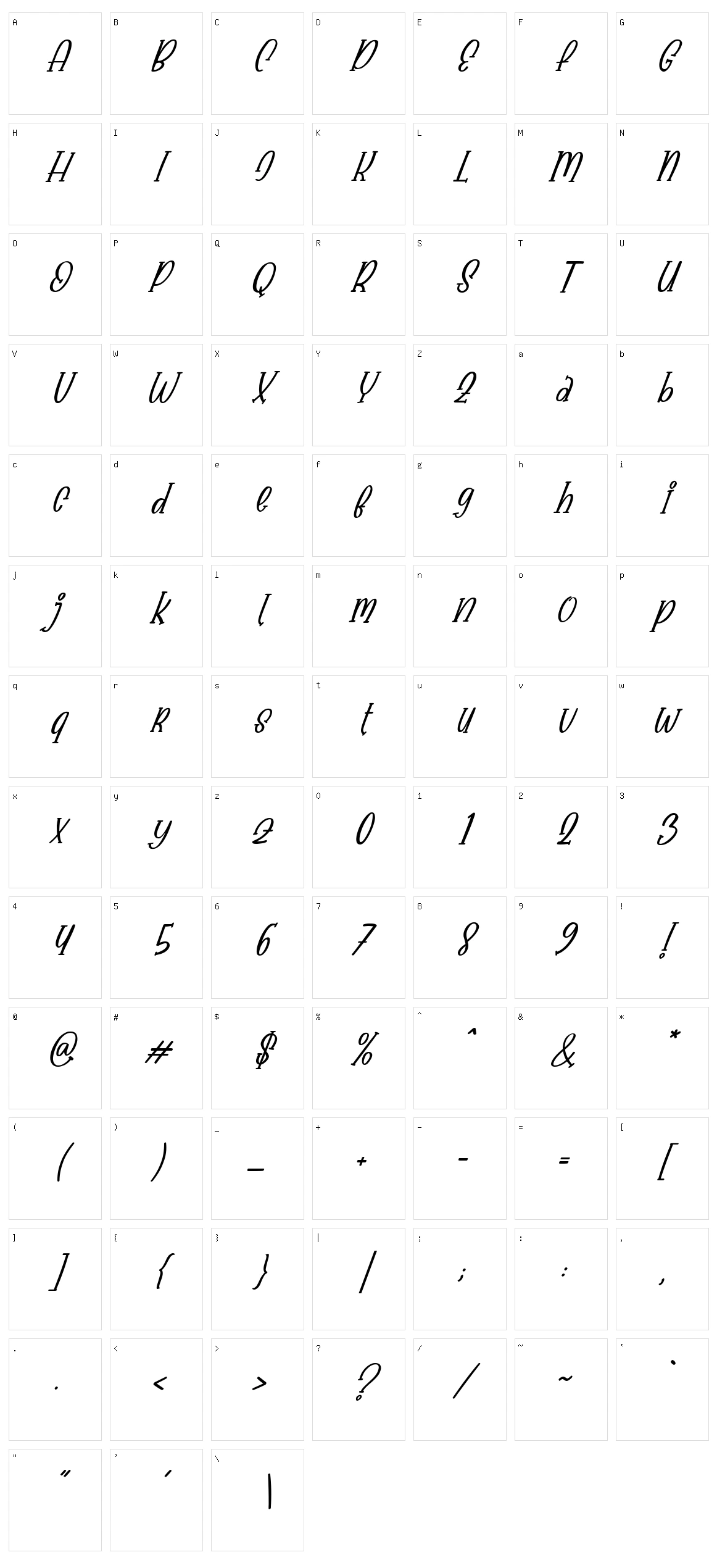
The free font Babyface is carefully designed by Kong Font, showcasing a thoughtful balance of creativity and usability and falls under the Cartoon font style. When you download the ZIP file, it contains only 502.98 KB of font files, making it lightweight and quick to download. Please review the license details below to understand permitted usage and distribution rights. If license information is not available, we recommend using this font for personal projects only or contacting the author directly for commercial usage permissions.